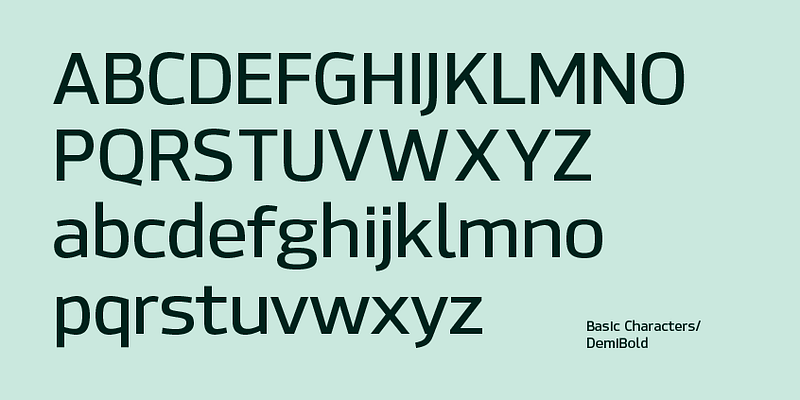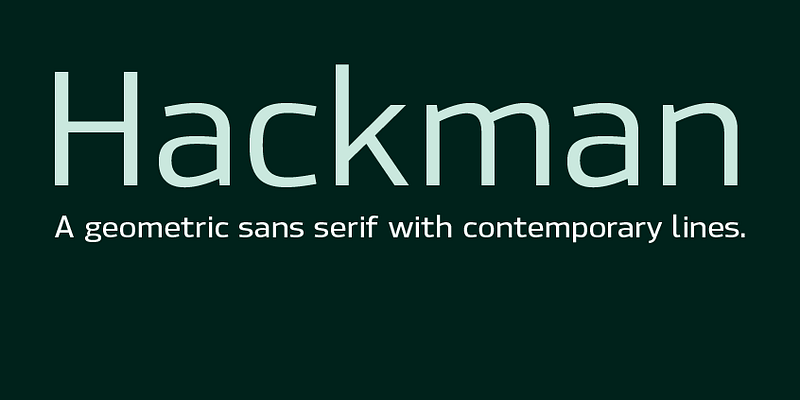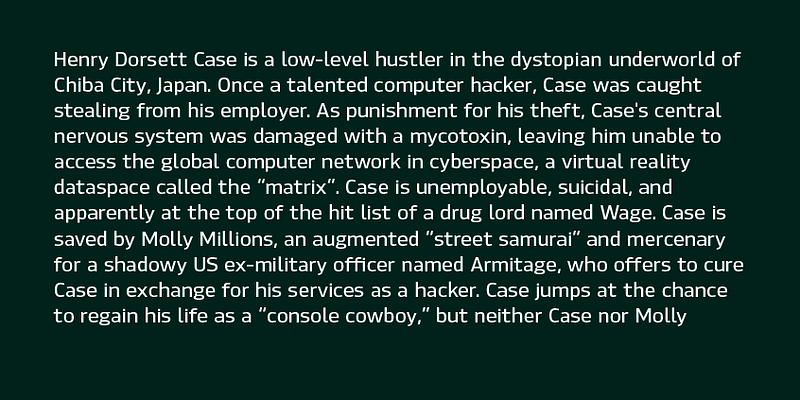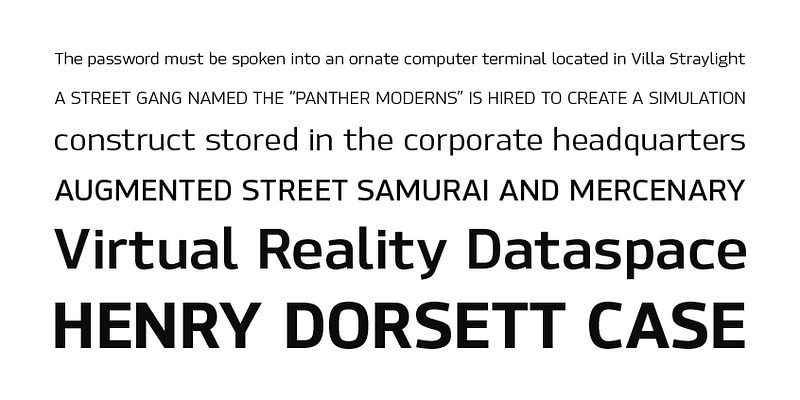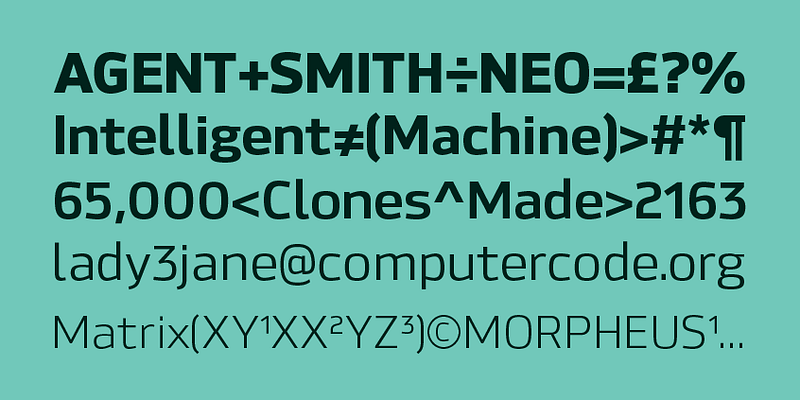
A geometric sans serif with contemporary lines. Distinctive curves, classical letterforms to produce a clean, linear typeface best suited to identity, mobile and web apps. 18 Weights including italics, 500 characters.